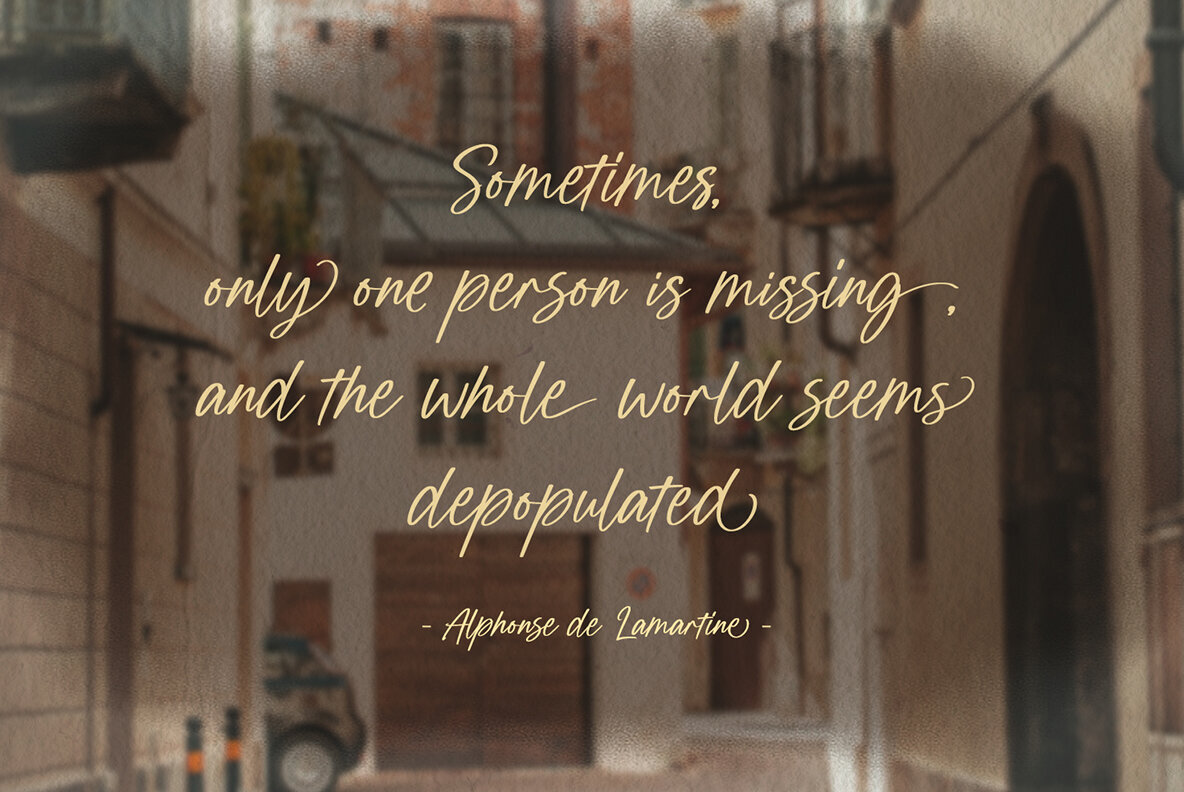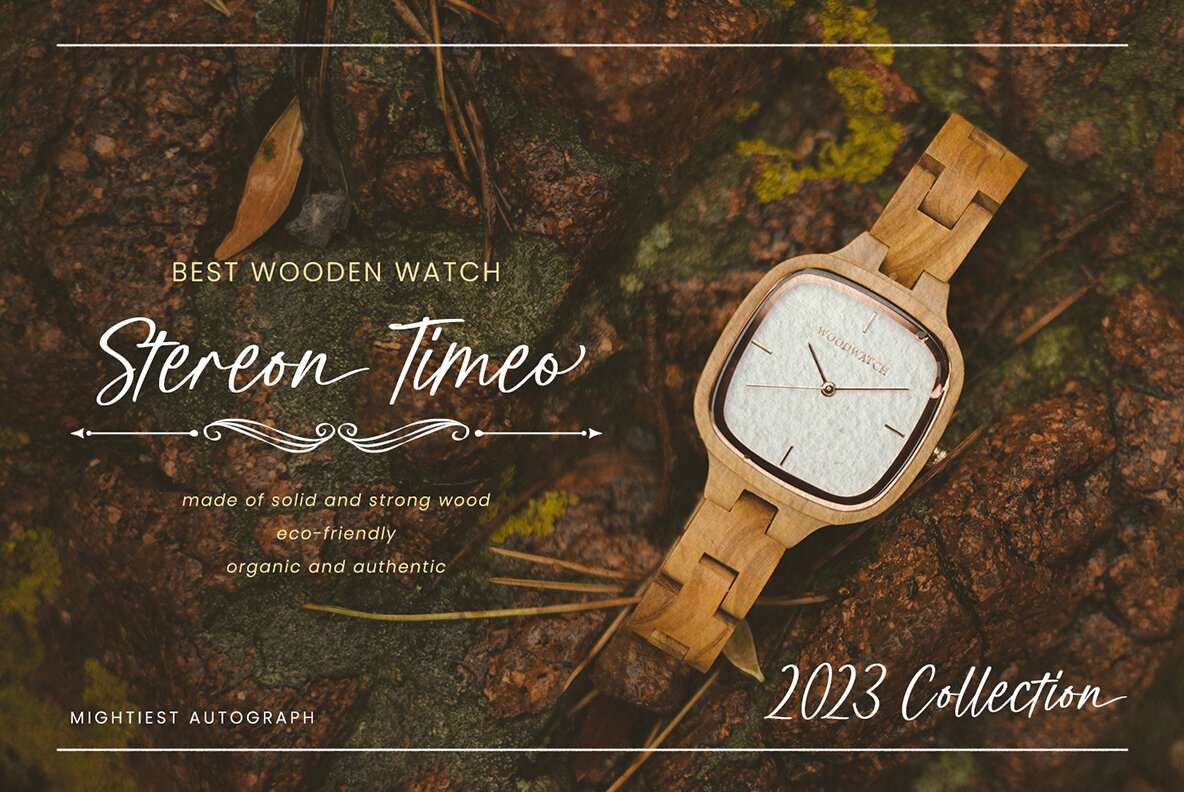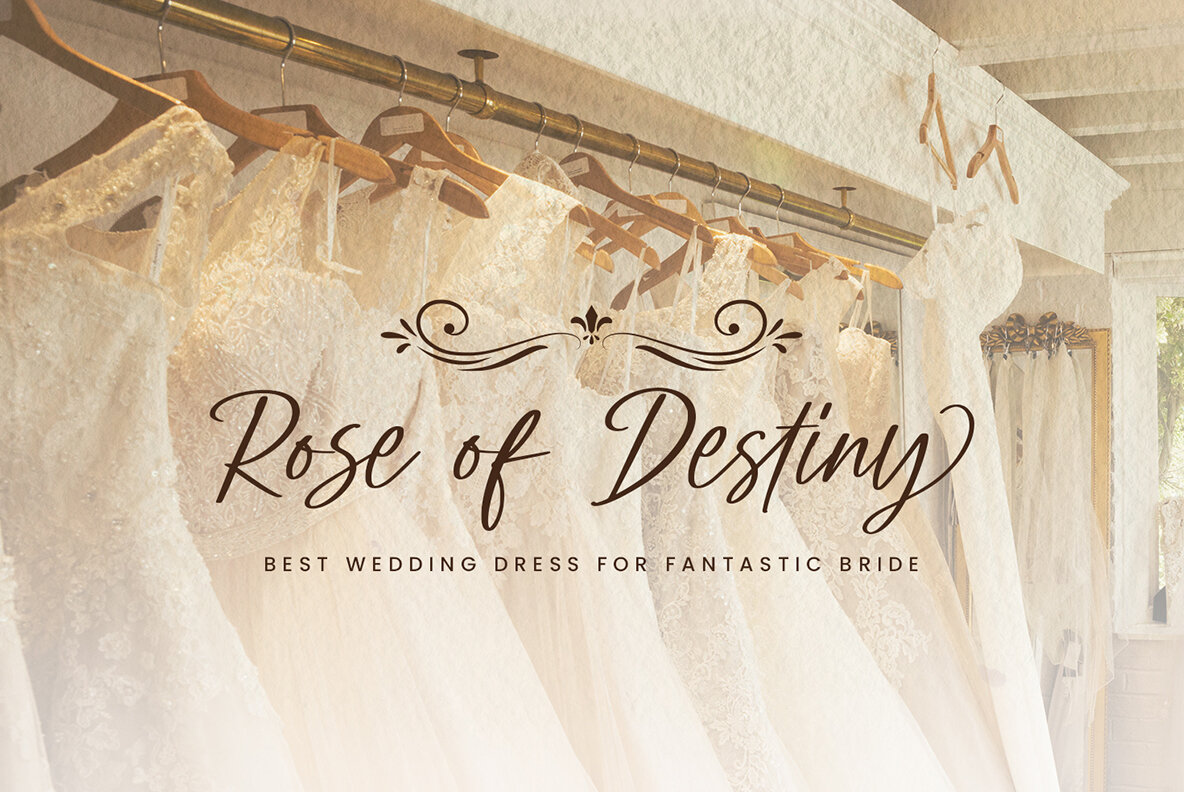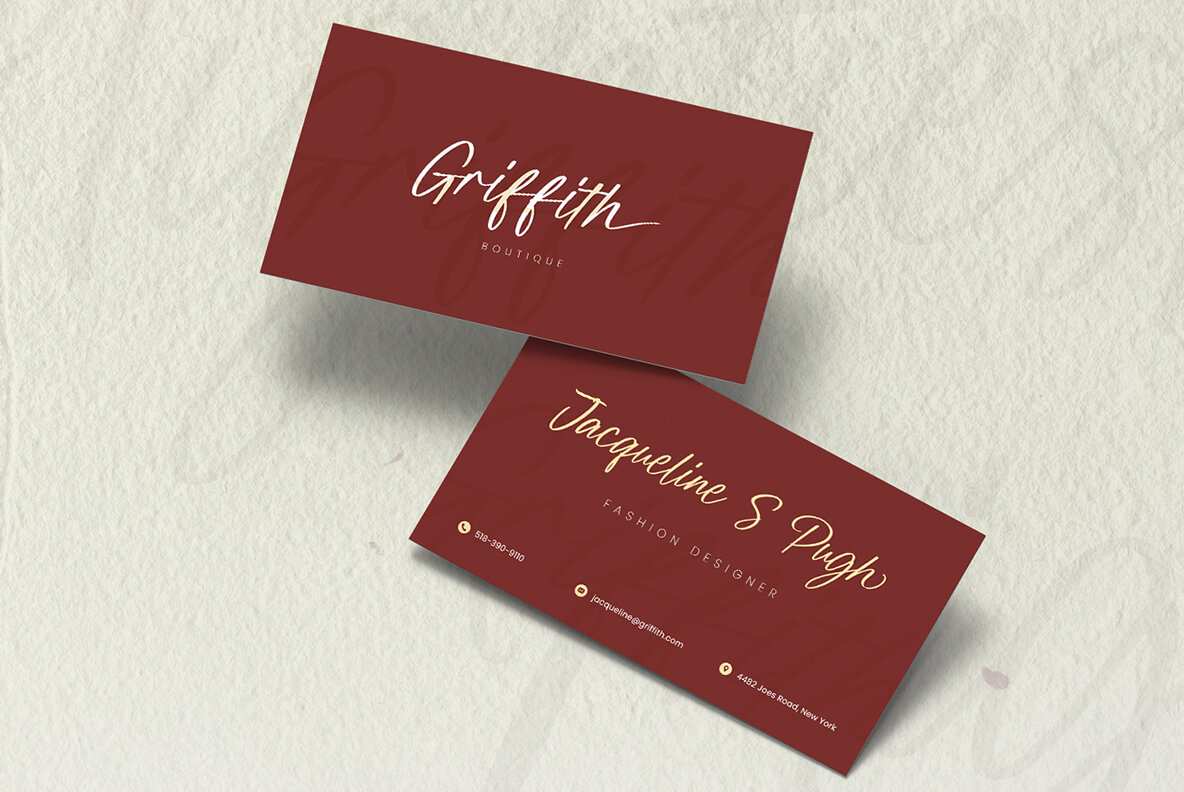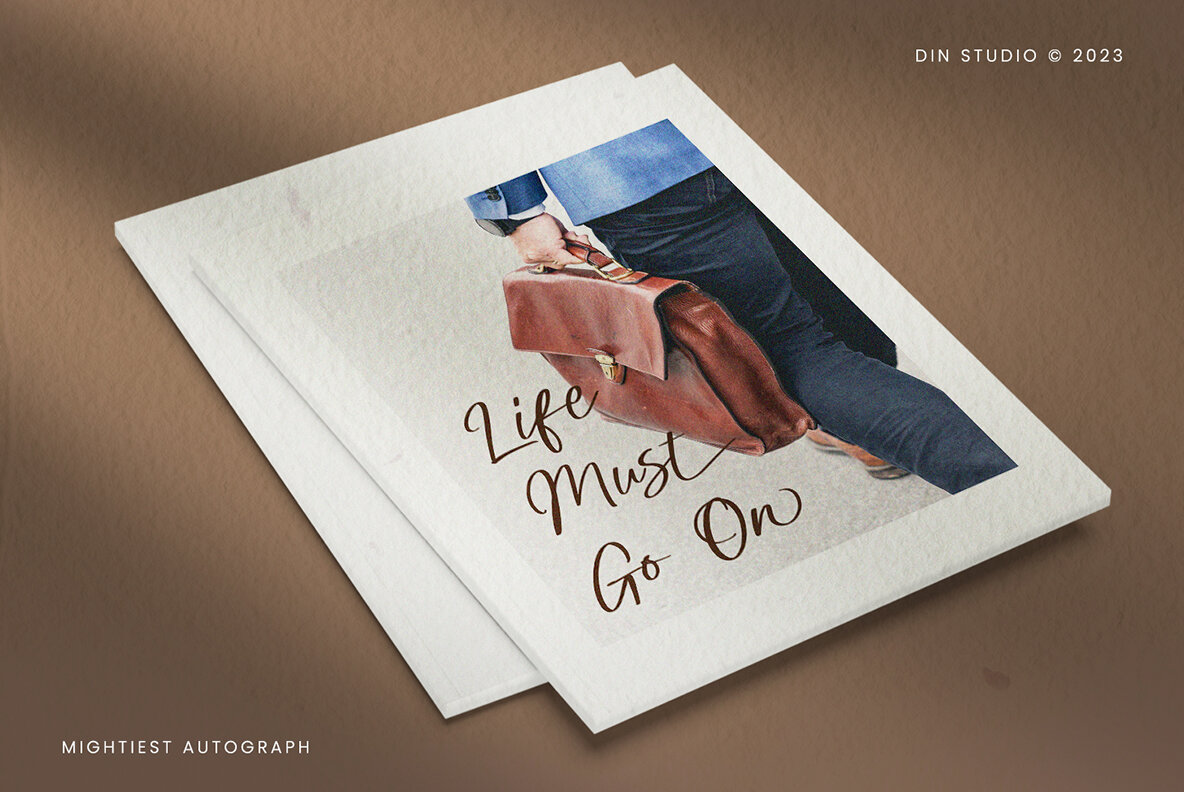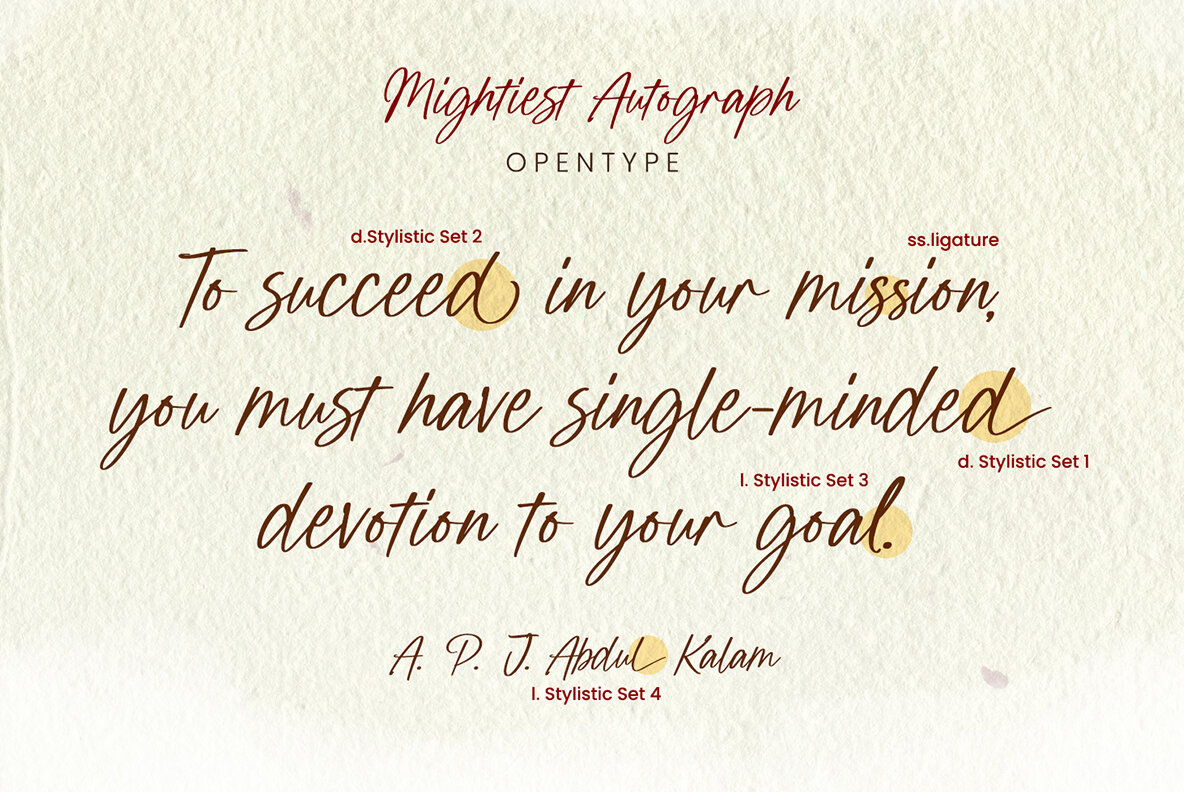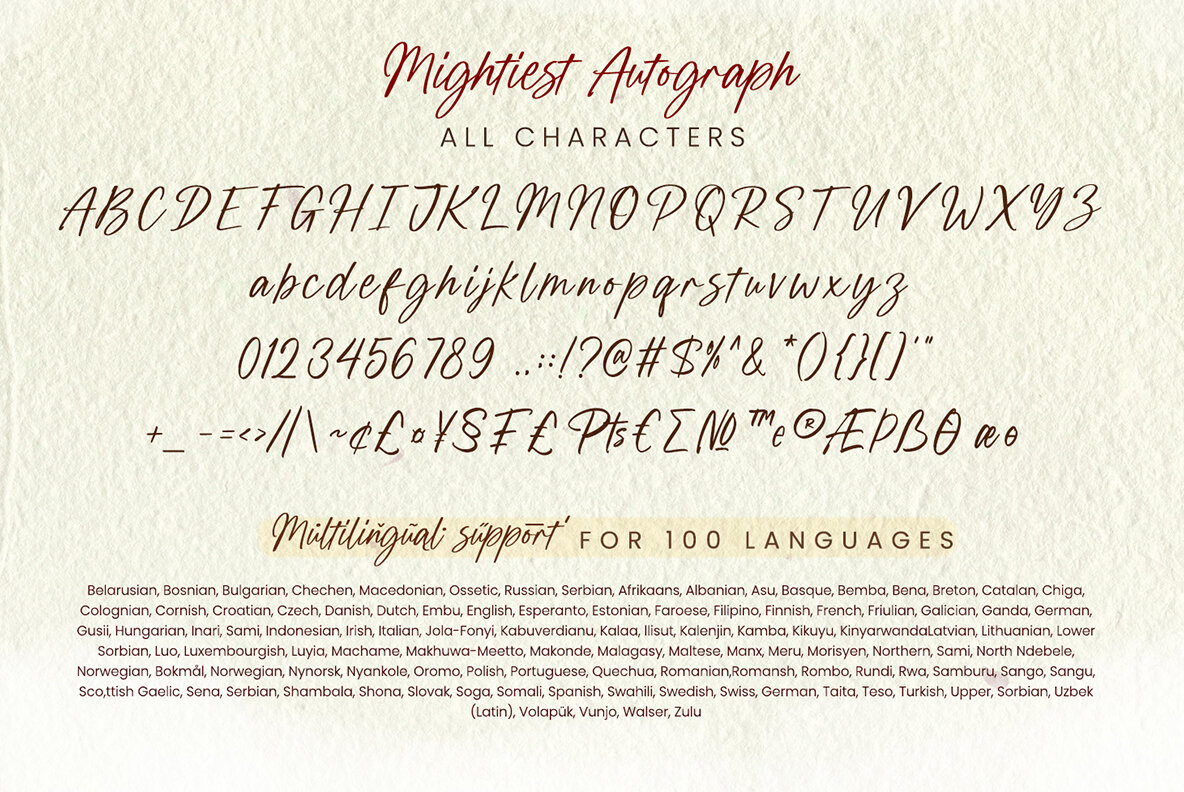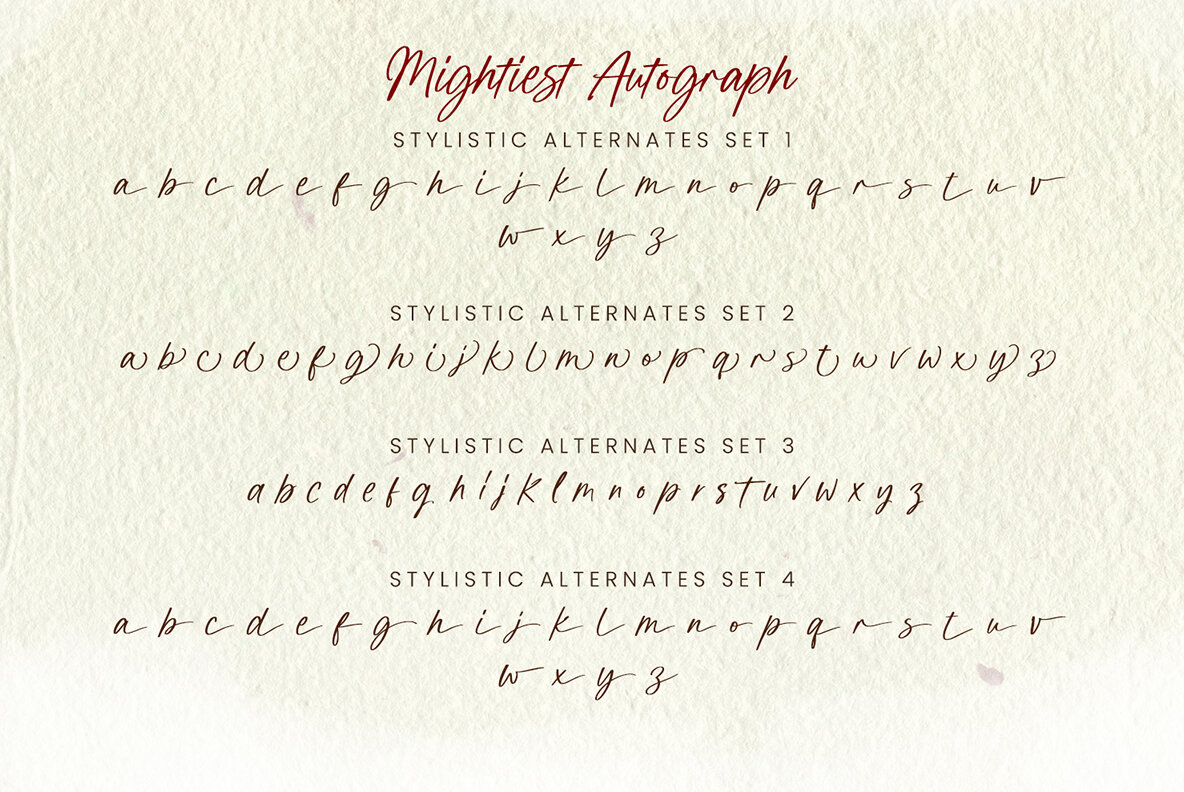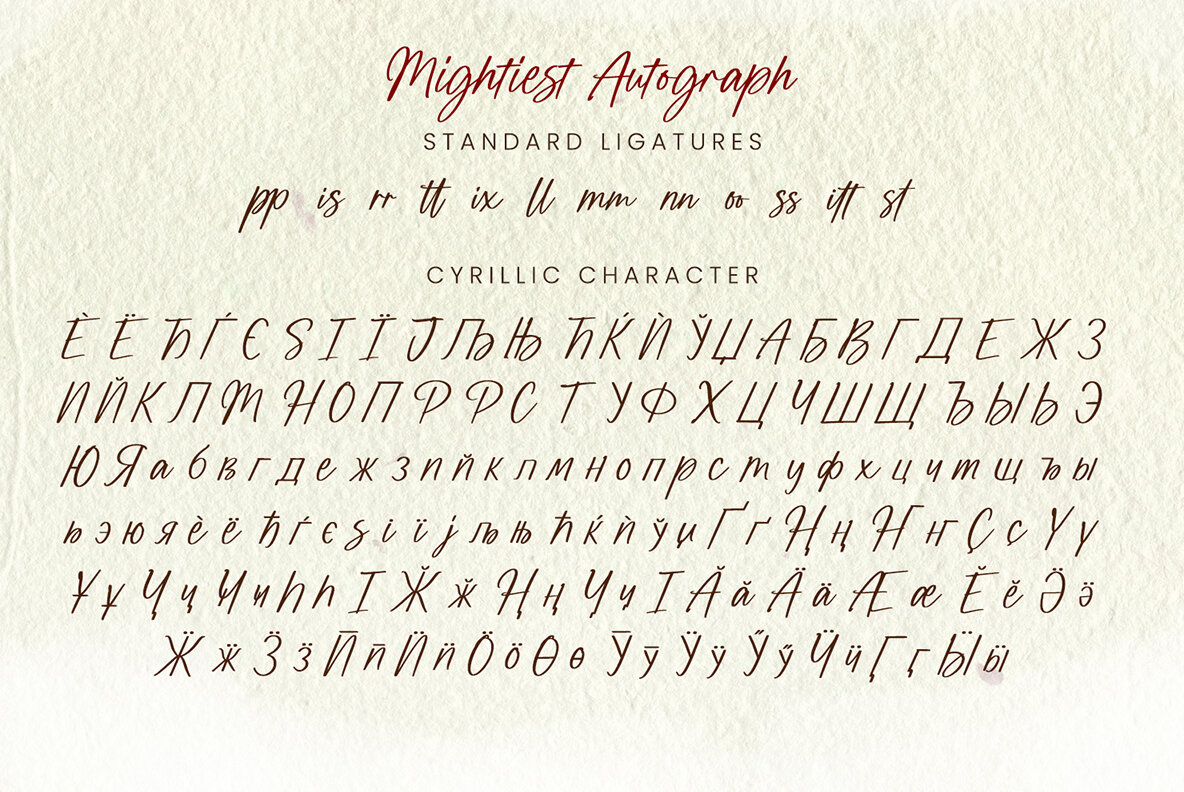
Mighties Autograph Font
Mightiest Autograph Regular
Introducing a handwritten font that brings a touch of elegance and personalization to your digital creations. This signature-style font offers distinctive curves and sweeping strokes that set it apart. Each letter seamlessly connects, ensuring smooth readability while bringing an artistic flair to romantic and expressive texts. Designed with varied proportions, it's visually captivating and versatile across different text sizes.
The font includes a range of features such as alternates, ligatures, multilingual support, PUA encoding, as well as numerals and punctuation. This makes it a perfect choice for a variety of design projects, including branding, posters, banners, invitations, greeting cards, magazine covers, and more. Ideal for any printed products, merchandise, or social media content, this font infuses your projects with a personal touch. Explore its full potential by viewing the font preview, and discover the myriad ways it can enhance your designs.